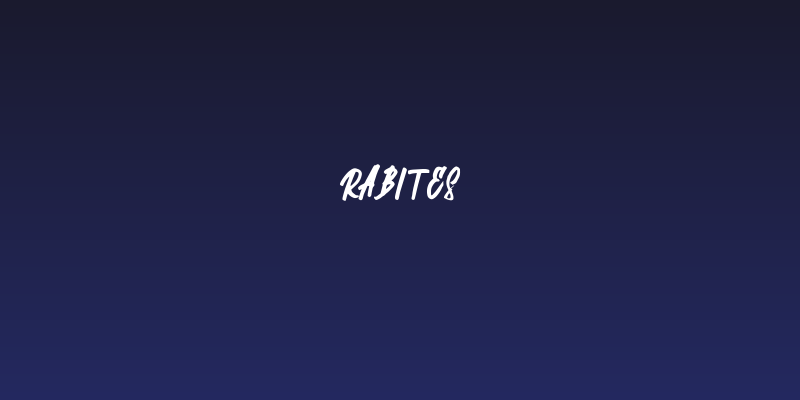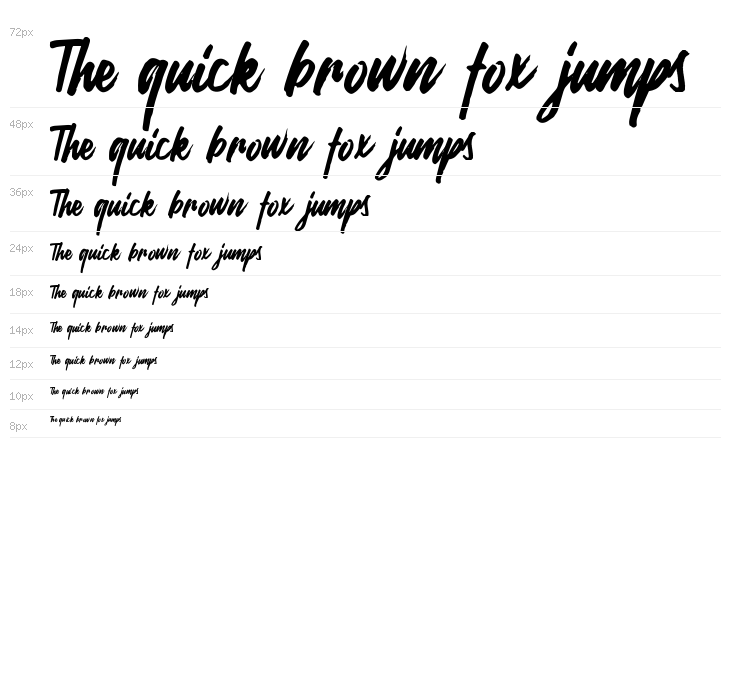
Rabites Font
Rabites Description
This font exhibits a bold, energetic script style with a hand-drawn appearance. The letters are connected in a fluid manner, giving it a dynamic and lively feel. The strokes are thick and expressive, with a slight slant that adds to its informal and casual character. The uppercase and lowercase letters maintain consistency in style, with the uppercase being slightly more pronounced. The numbers and special characters follow the same energetic style, ensuring uniformity across all elements. This font is ideal for projects that require a personal touch or a sense of movement and creativity.